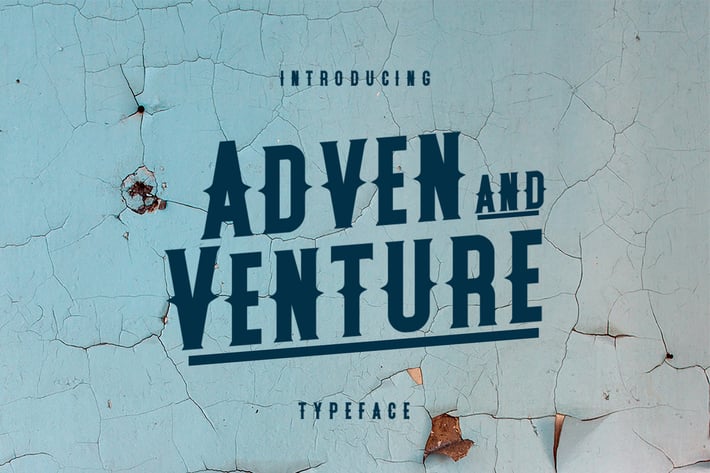
Adven and Venture Typeface
Adven and Venture Typeface is strong, sharp and have a painted look feel. Suitable for digital lettering, branding materials, t-shirt, print, business cards, quotes, logo, poster, t-shirt, nature photography and applicable for any graphic design.